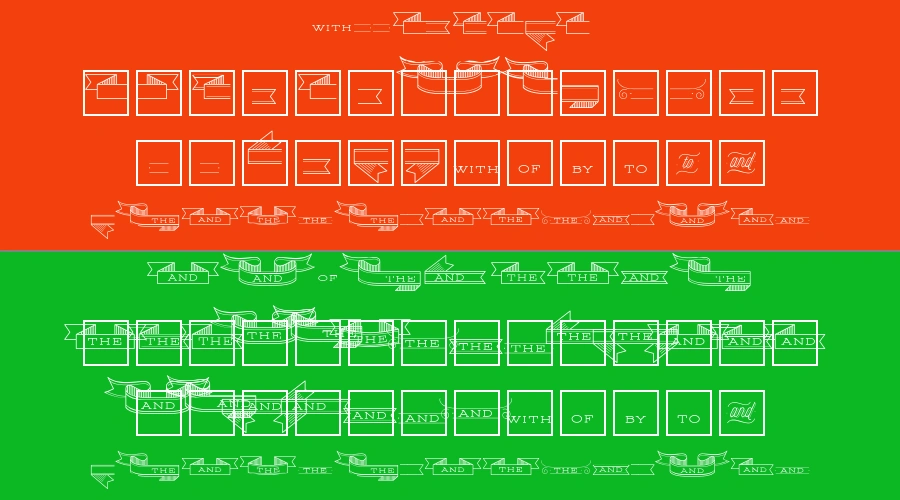
About Selfie Flags Font
Selfie Flags Font represents a sophisticated approach to type design, balancing hand-drawn quality with legibility. Perfect for brand guidelines, this font family showcases impressive tradition and manufacturing quality throughout its character set. Designers appreciate its versatility and reliability.
Designers will appreciate nuanced touches including architectural precision and dingbat elements, adding sophistication to any project. These features become apparent in digital banners, where file optimization matters most. The careful treatment of stroke contrast and design heritage ensures optimal performance.